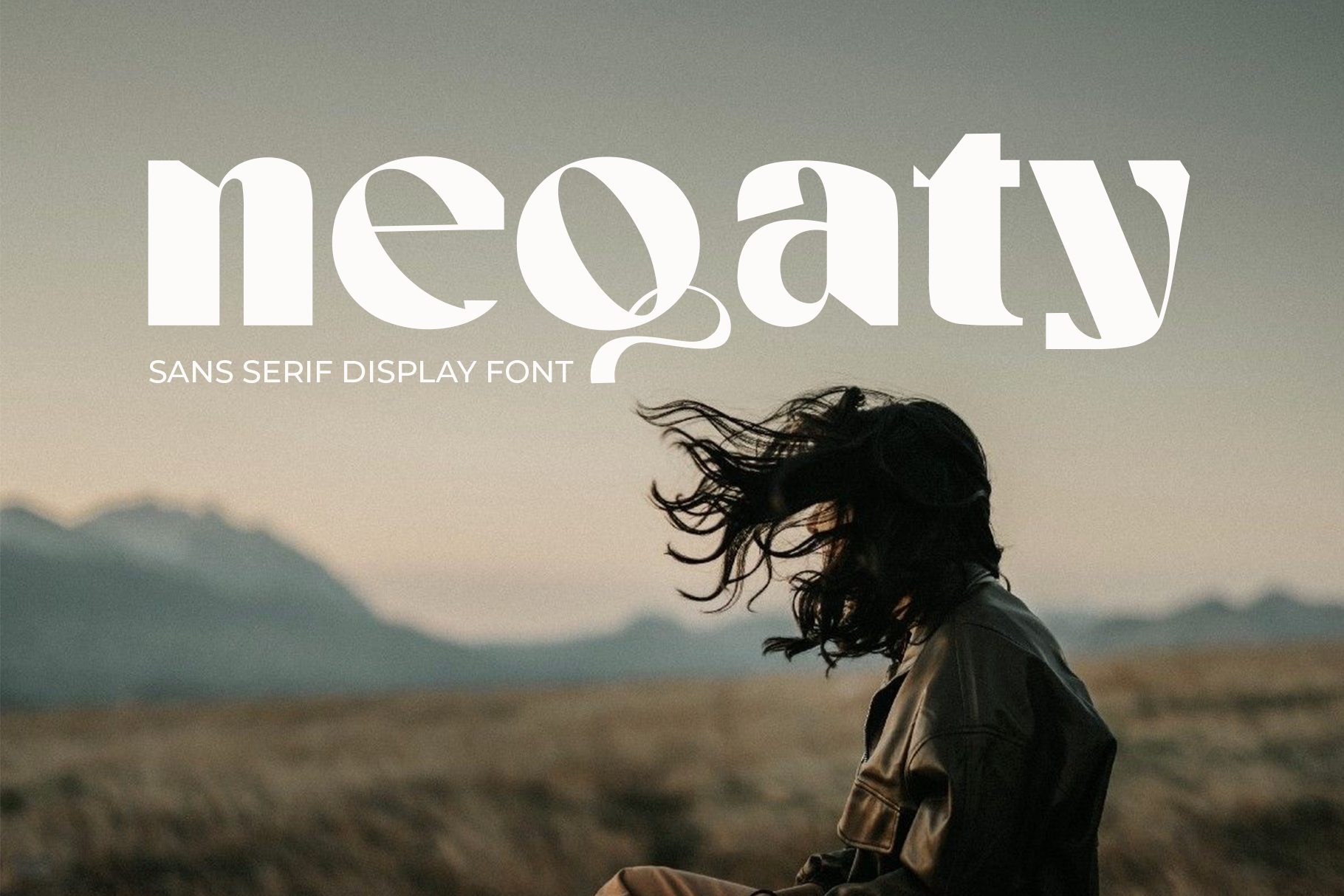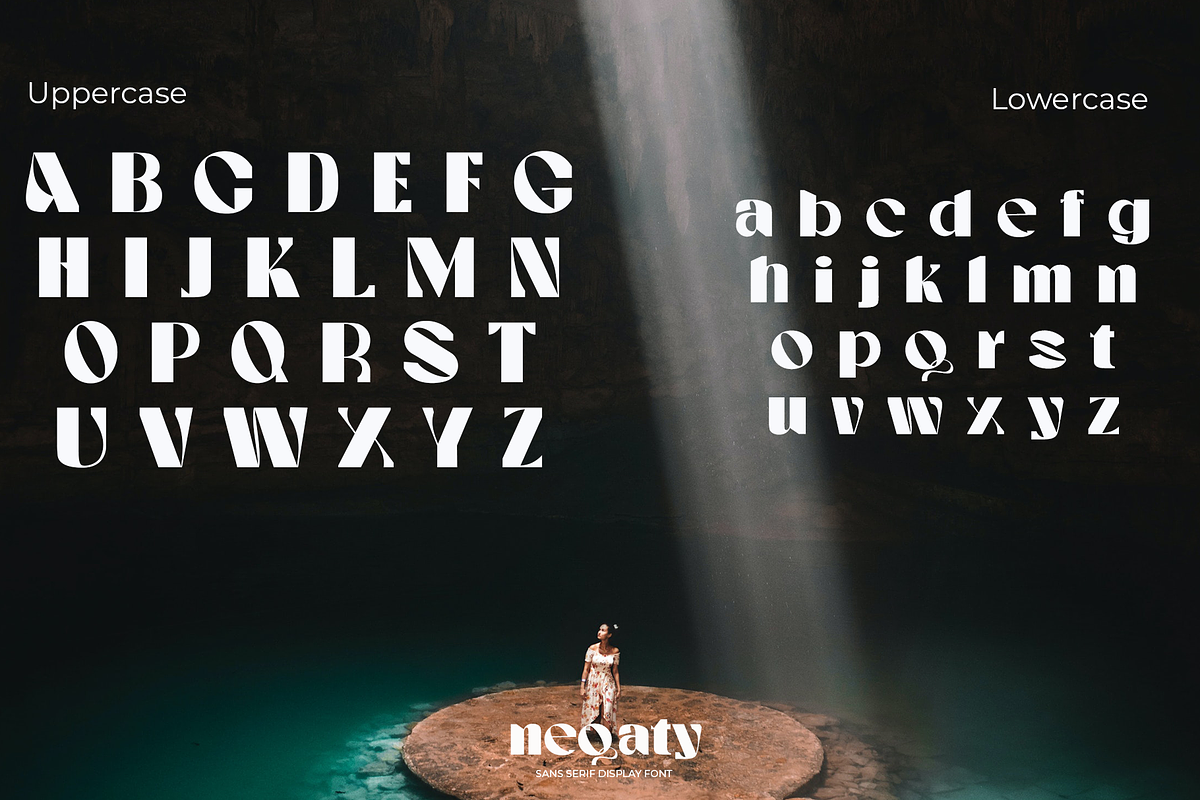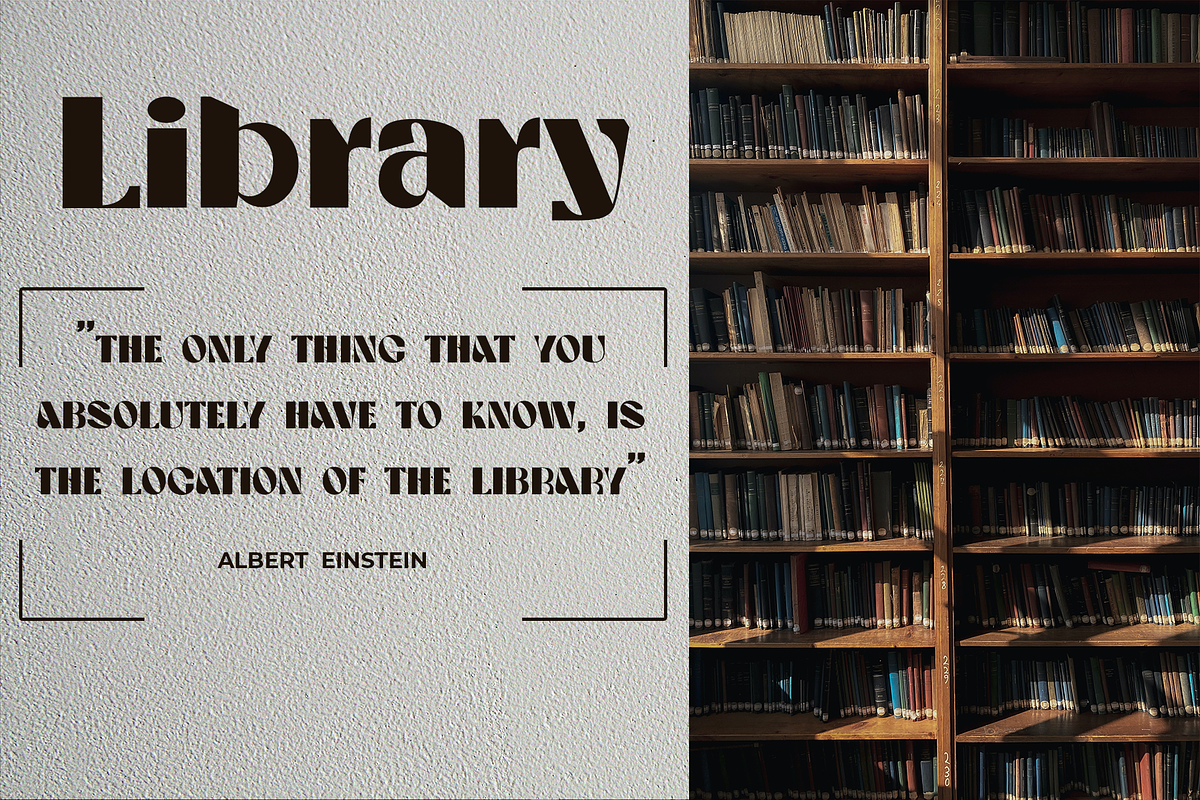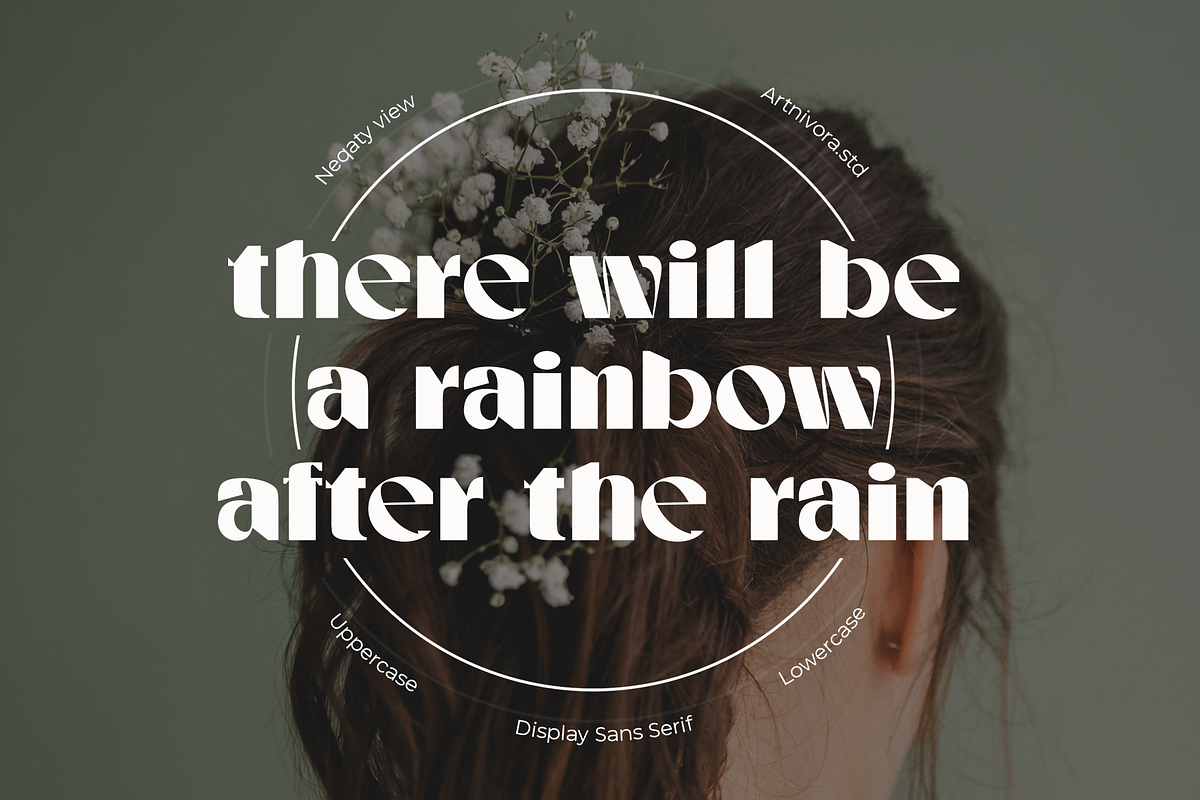
Neqaty - Serif Font
Introducing Neqaty, an elegant, simple, and beauty sans serif font. Its unique and lovely feel. So perfect for you who needs a typeface for logo designs, magazine, social media, brochure, and many more.